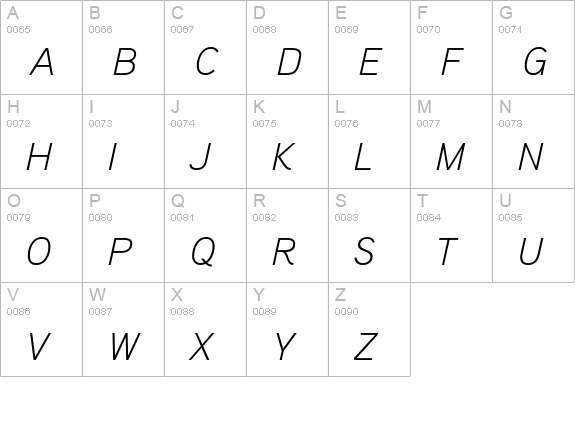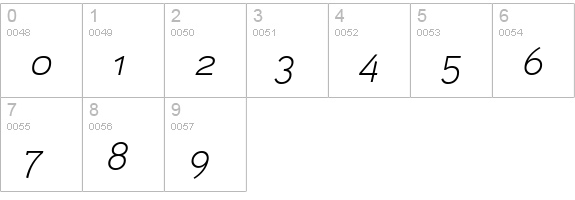
Aaux ProLight Italic OSF Font Details
Aaux ProLight Italic OSF is a distinctive, italic variant in the Aaux typeface family \xE2\x80\x94 well suited to design and typography projects.
Aaux ProLight Italic OSF font is a sleek and modern typeface that exudes elegance and sophistication. Its slender and slanted design adds a touch of flair to any project, making it perfect for conveying a sense of style and refinement. This font is ideal for use in branding, editorial design, and any project where a touch of sophistication is needed. The italic style adds a dynamic and stylish element to your text, making it stand out and capture attention. The best part? Aaux ProLight Italic OSF font is available for free download at FontsMarket.com. This means you can elevate your designs with this beautiful typeface without having to spend a penny. Don't miss out on this opportunity to enhance your projects with the elegance and charm of Aaux ProLight Italic OSF font.